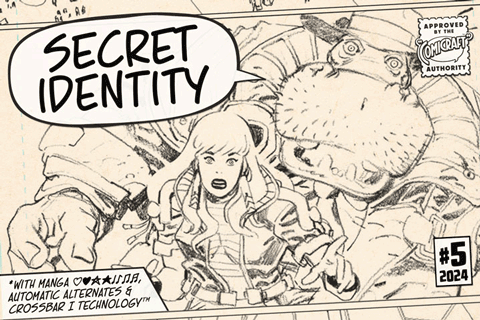
- Four weights with alternate uppercase
Languages: Complete Europe (221) Plus: Automatic alternates, Manga characters & Crossbar I Technology™
Secret Identity – Condensed Superhero Speech Balloon Font
Fit more dialogue into tight comic panels without sacrificing legibility with Secret Identity, a slightly condensed, single-stroke dialogue font designed for superhero comics and fast-paced graphic novels. Built for clean layout efficiency, this space-saving typeface allows writers to include longer speeches within softly contoured word balloons. The Secret Identity family features four all-uppercase weights, powerful automatic alternates, Manga characters, and support for over 220 European languages with Crossbar I Technology™. Get Secret Identity now!